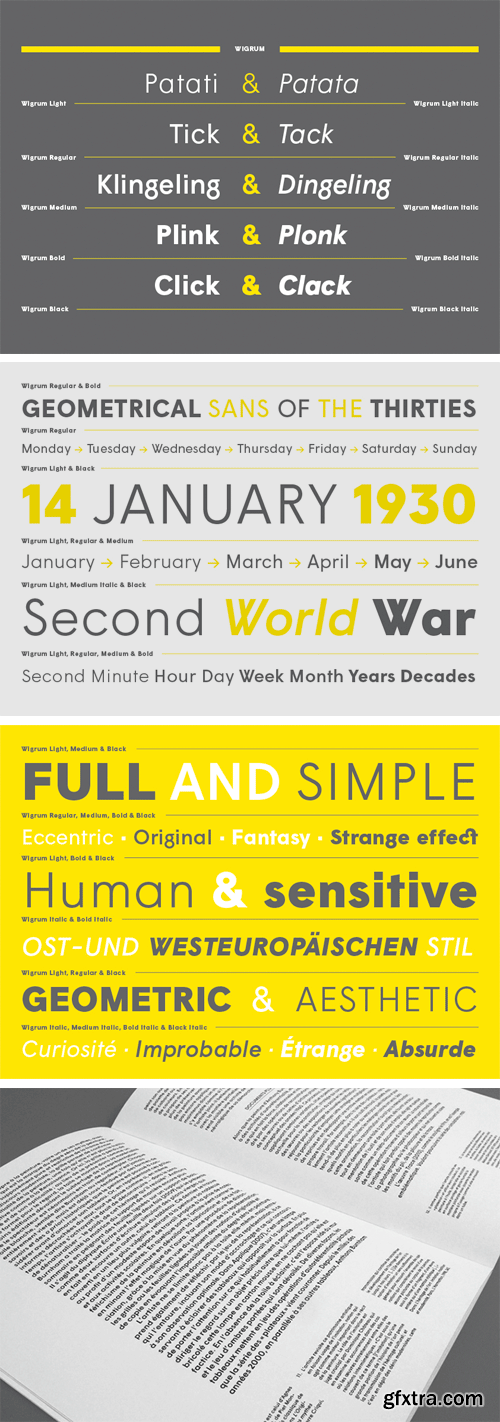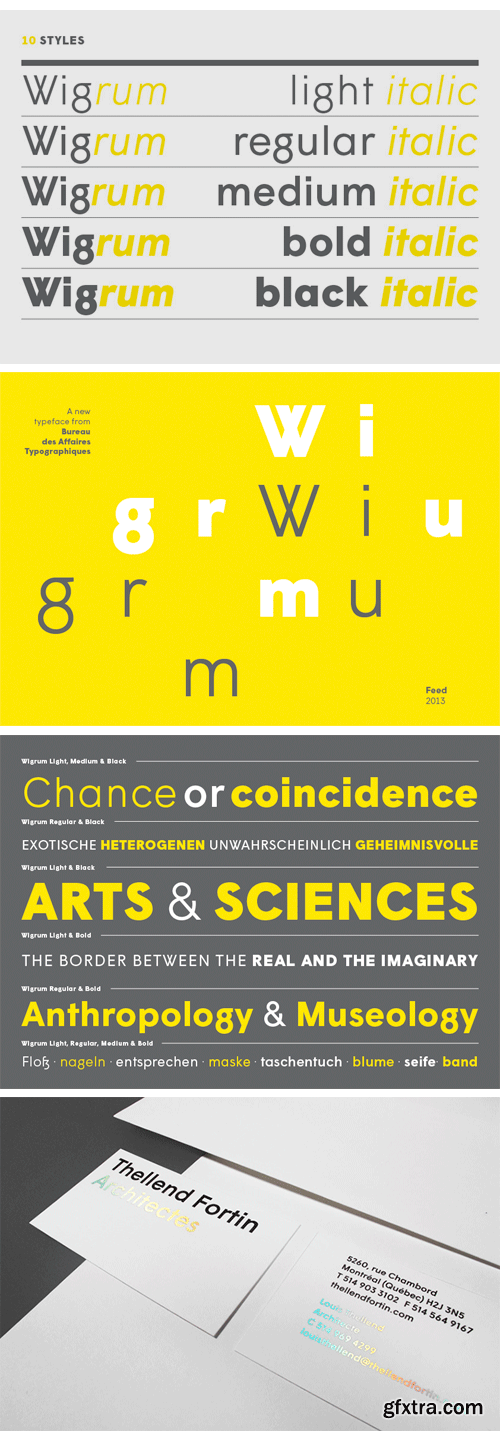
- Wigrum was born in 2011, when Anouk Pennel and Raphaël Daudelin, from Montréal-based design studio Feed, were preparing the book design for Daniel Canty’s latest novel. Canty, a contemporary writer from Québec, writes in Wigrum about a mysterious character who moves at the border between fiction and reality, between Second World War time and present time, between Eastern and Western Europe. In order to typeset the book, Studio Feed created Wigrum, a sans serif with strong references to both geometrical sans of the thirties, and to their current influence.